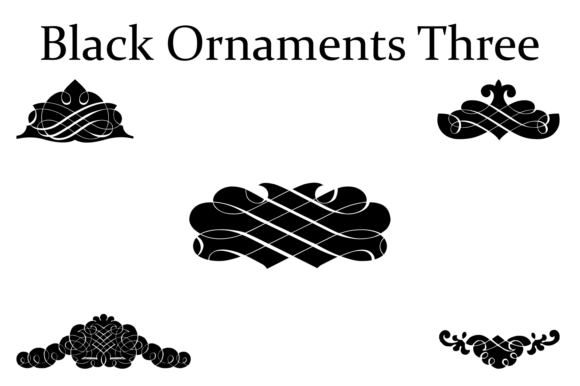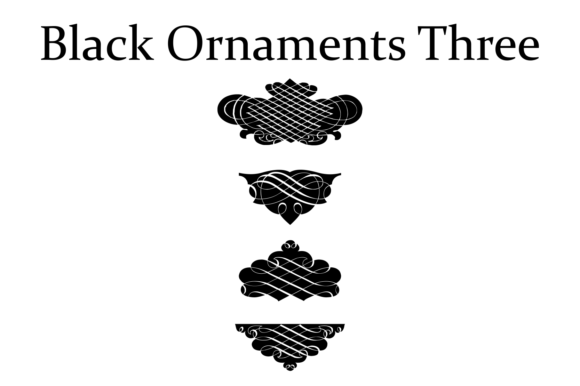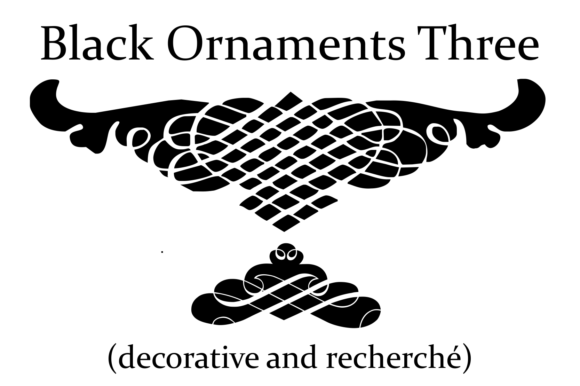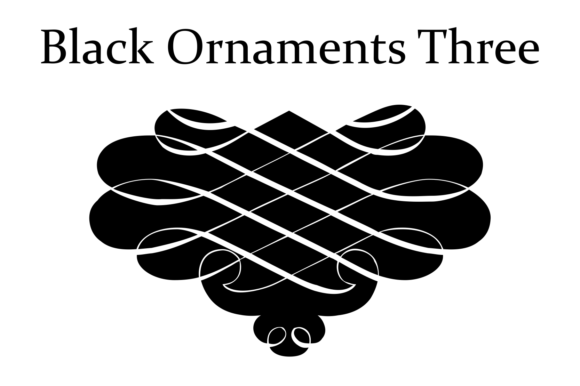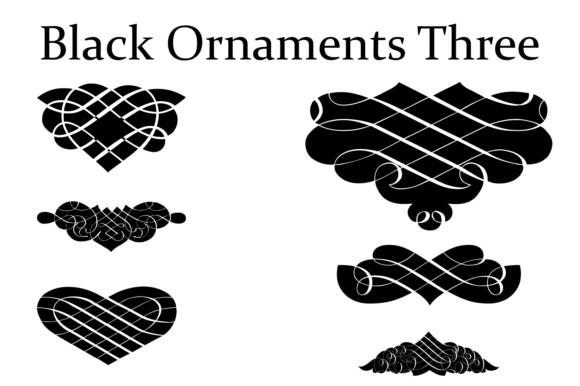
About Black Ornaments Three Font
The Black Ornaments Three font is a remarkable addition to the family of ornament and dingbat fonts inspired by the CalligraphiaLatina font series. This font is specifically designed to bring an elegant and decorative touch to your artistic and publishing projects.
With the Black Ornaments Three font, you have access to a wide range of intricate and visually appealing ornaments and dingbats. These elements can be used to enhance various editorial works of art, including book covers, headpieces, packaging, magazines, and more. The ornate and detailed nature of the ornaments adds a sophisticated and artistic flair to your designs.
Whether you’re looking to create a lavish and ornamental book cover, embellish a magazine layout, or add exquisite details to packaging materials, the Black Ornaments Three font offers a diverse collection of elements to choose from. You can combine these ornaments with typography, illustrations, or other design elements to create visually captivating compositions.
The font’s inspiration from the CalligraphiaLatina series ensures a cohesive and harmonious aesthetic when used together. This allows you to create a cohesive visual language across your projects, whether you’re utilizing the entire font family or incorporating select fonts from the series.
The versatility of the Black Ornaments Three font makes it a valuable resource for designers and artists seeking to add a touch of elegance and sophistication to their creations. The ornamental nature of the font makes it ideal for projects that require a luxurious and refined aesthetic.
In summary, the Black Ornaments Three font is a visually stunning addition to the ornament and dingbat font family inspired by the CalligraphiaLatina series. Its use can elevate various artistic and publishing projects, including book covers, headpieces, packaging, magazines, and more. With its intricate and decorative elements, this font allows you to create visually captivating compositions that exude elegance and sophistication.